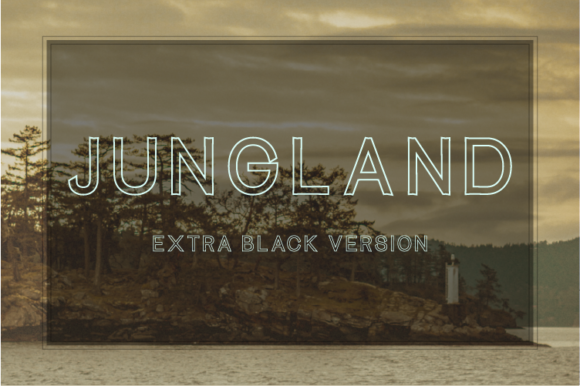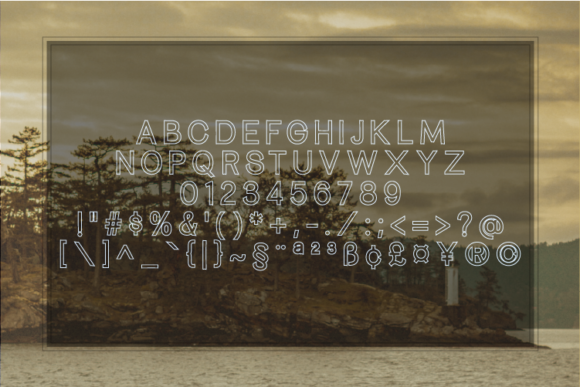
Jungland Outline Extra Black Font
About Jungland Outline Extra Black Font
Jungland Outline is a geometric font family with a warm, engaging style. It will elevate a wide range of design projects to the highest level, be it branding, headings, wedding designs, invitations, signatures, logos, labels, and much more!